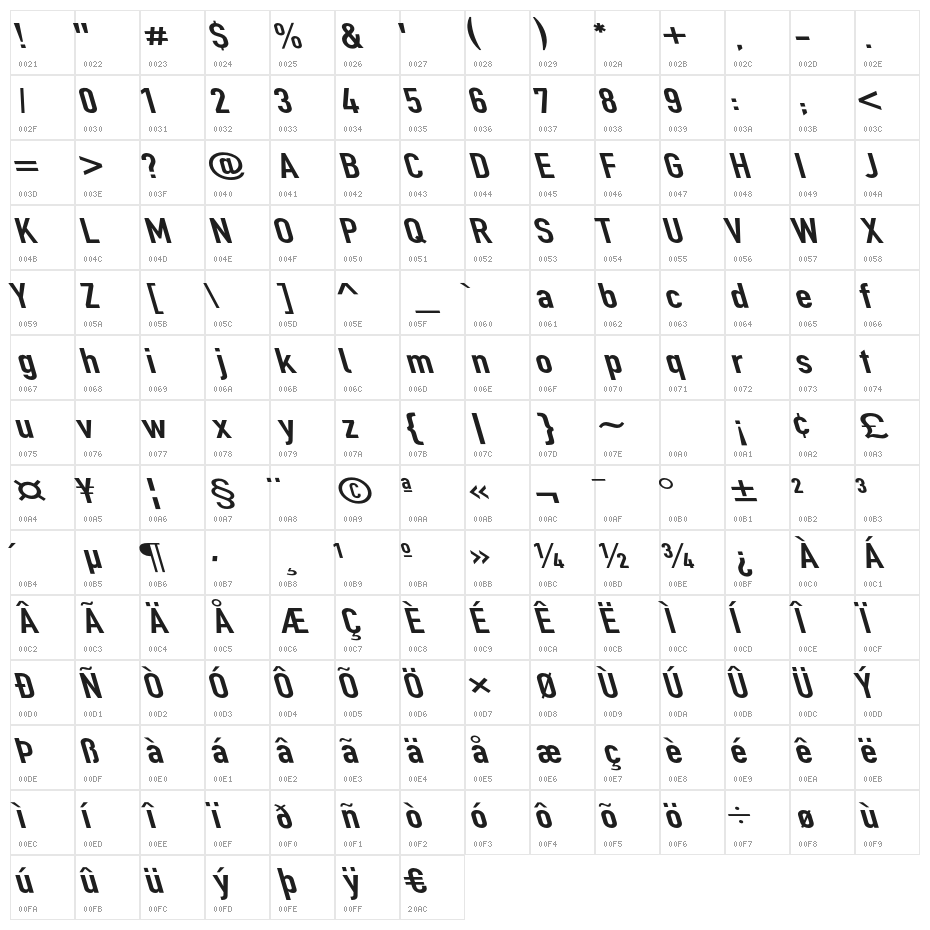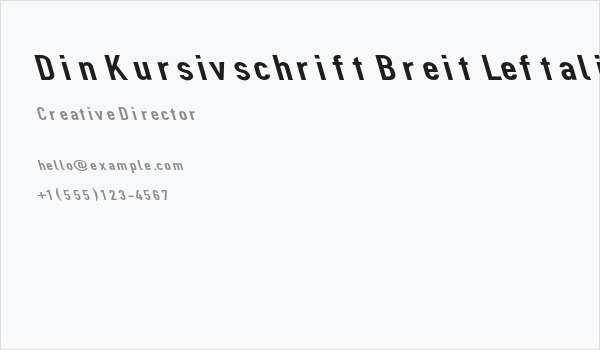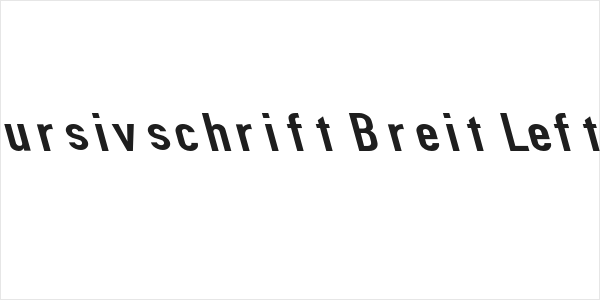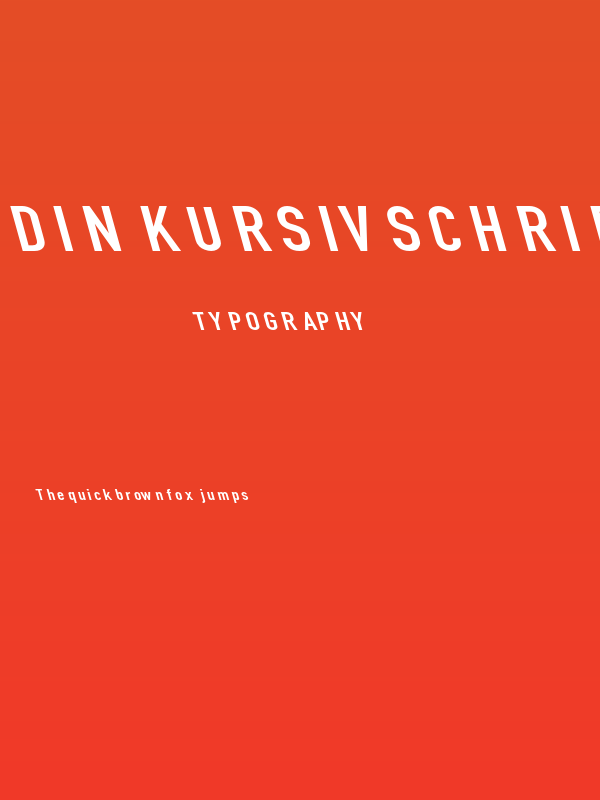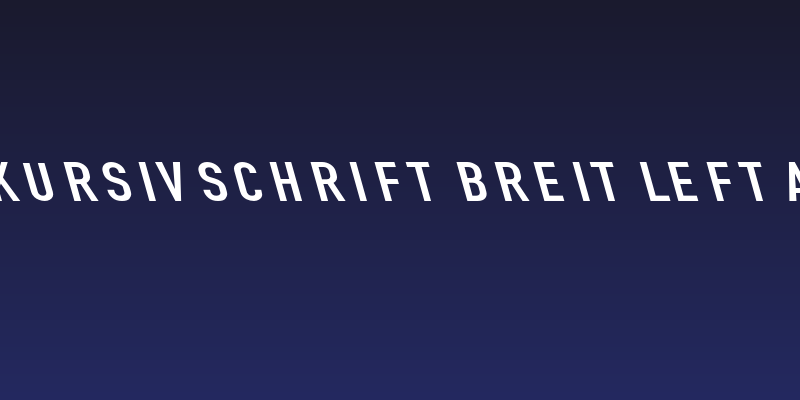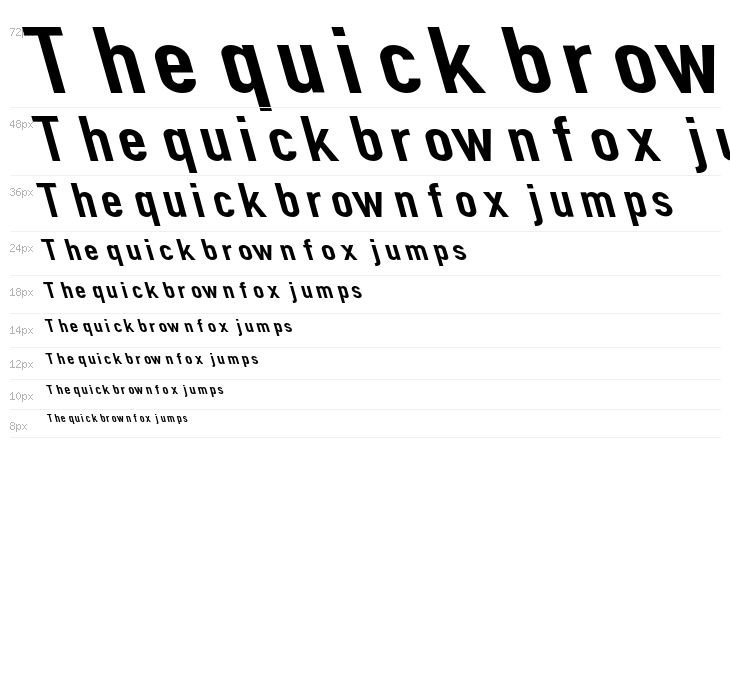
Din Kursivschrift Breit Leftalic Font
Din Kursivschrift Breit Leftalic Description
This font features a bold and dynamic style with a left-leaning italic slant, giving it a sense of motion and urgency. The characters are broad and well-defined, with consistent stroke widths that contribute to a strong visual impact. The uppercase and lowercase letters maintain a uniform appearance, enhancing readability. The numerals are clear and distinct, making them suitable for various applications. Special characters are included, offering versatility for different design needs. Overall, this font exudes a modern and assertive aesthetic, ideal for making a statement.
| Use Case | Headlines, Logos, Advertising |
| Proposed Projects | Ideal for branding, advertising, headlines, and any project requiring a bold and modern typeface. |